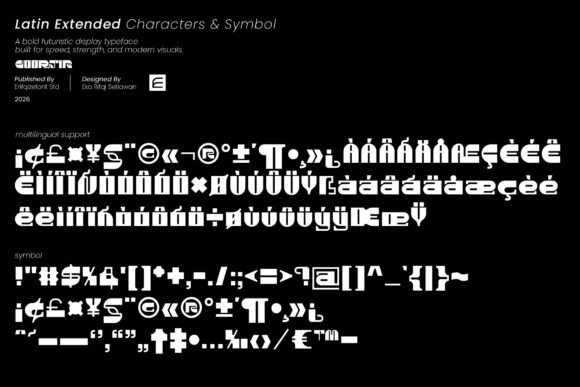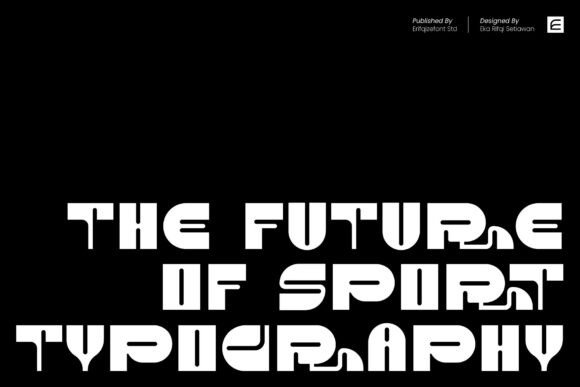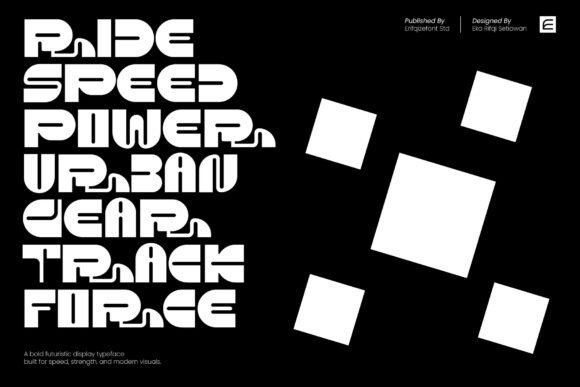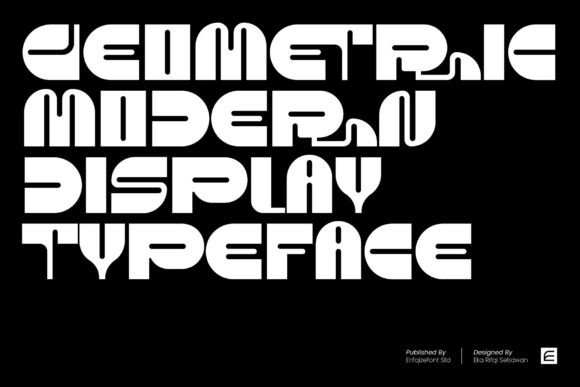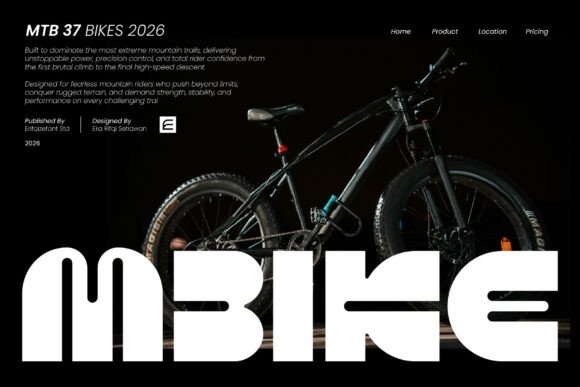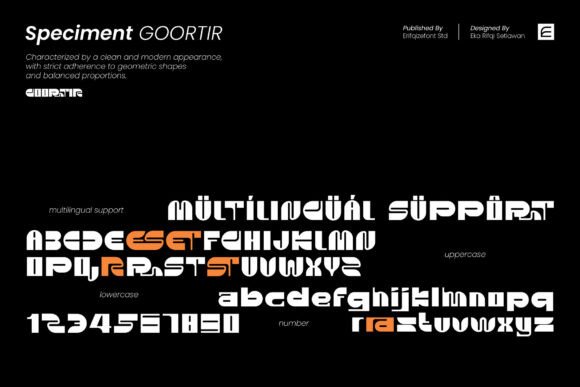
Introducing Goortir Font: The Futuristic Display Typeface for Modern Design
In the realm of typography, fonts play a crucial role in shaping the visual identity of a brand, product, or creative project. With the ever-evolving landscape of design, it’s essential to have a font that not only stands out but also communicates a sense of innovation and forward thinking. This is where Goortir Font comes into play – a futuristic display typeface that seamlessly blends bold geometric structure with smooth, continuous line details.
The Design Philosophy Behind Goortir Font
Goortir Font is crafted with a clear vision to create a sleek sci-fi aesthetic that doesn’t compromise on readability. Its design is characterized by rounded terminals, connected strokes, and a modern construction that gives it a unique edge. The font’s structure is bold and geometric, yet the smooth lines and curves add a touch of elegance, making it perfect for high-impact visual communication.
Key Features of Goortir Font
- Bold Geometric Structure: Goortir Font boasts a robust and geometric design that commands attention. Its bold structure makes it ideal for use in large formats, such as posters, billboards, and digital interfaces.
- Smooth, Continuous Line Details: The font’s smooth lines and curves add a dynamic touch, creating a sense of motion and innovation. This feature is particularly useful for tech branding, gaming titles, and album covers.
- Rounded Terminals and Connected Strokes: The rounded terminals and connected strokes contribute to the font’s sleek and modern look. This design choice enhances readability while maintaining a futuristic feel.
- Unique Internal Line Elements: One of the standout features of Goortir Font is its unique internal line elements. These add a sense of depth and motion, giving the font a dynamic personality that’s hard to ignore.
Use Cases for Goortir Font
Given its futuristic and sleek design, Goortir Font is versatile and can be used across various platforms and projects. Some of the ideal use cases include:
- Tech Branding: For tech companies looking to establish a modern and innovative brand image, Goortir Font is an excellent choice.
- Gaming Titles: The font’s dynamic and futuristic look makes it perfect for gaming titles, adding an edge to game packaging, titles, and promotional materials.
- Digital Interfaces: Goortir Font can enhance the visual appeal of digital interfaces, including websites, apps, and software, by providing a clean and modern typographic voice.
- Posters and Album Covers: Its bold and attention-grabbing design makes it suitable for posters, album covers, and any other large-format visual communications.
Why Choose Goortir Font?
For designers and crafters looking for a modern, technology-driven typographic voice, Goortir Font stands out as an exceptional choice. Here are a few reasons why:
- Clean and Confident: Goortir Font exudes confidence with its clean lines and bold structure, making it perfect for projects that require a strong visual statement.
- Distinctly Contemporary: The font’s unique design elements ensure it looks contemporary and fresh, suitable for both digital and print media.
- Versatility: Goortir Font can be used across a wide range of projects, from tech branding to creative endeavors, offering versatility to designers.
| Font Name | Goortir Font |
| Author | erifqizefont |
Goortir Font is a powerful tool for designers aiming to infuse their projects with a sense of innovation and modernity. Its unique blend of geometric boldness and smooth lines, coupled with its versatility and readability, makes it an excellent choice for a wide array of applications. Whether you’re working on tech branding, gaming titles, digital interfaces, or creative projects, Goortir Font offers a modern, clean, and confident typographic voice that’s sure to make an impact.